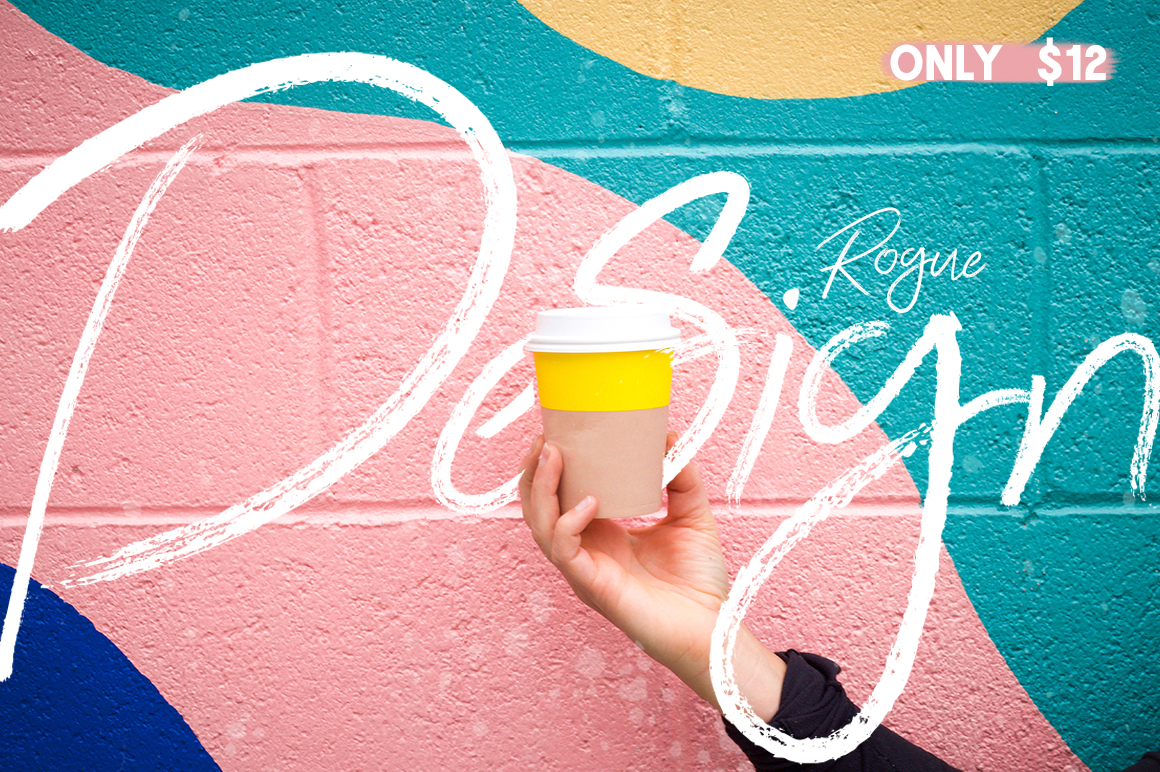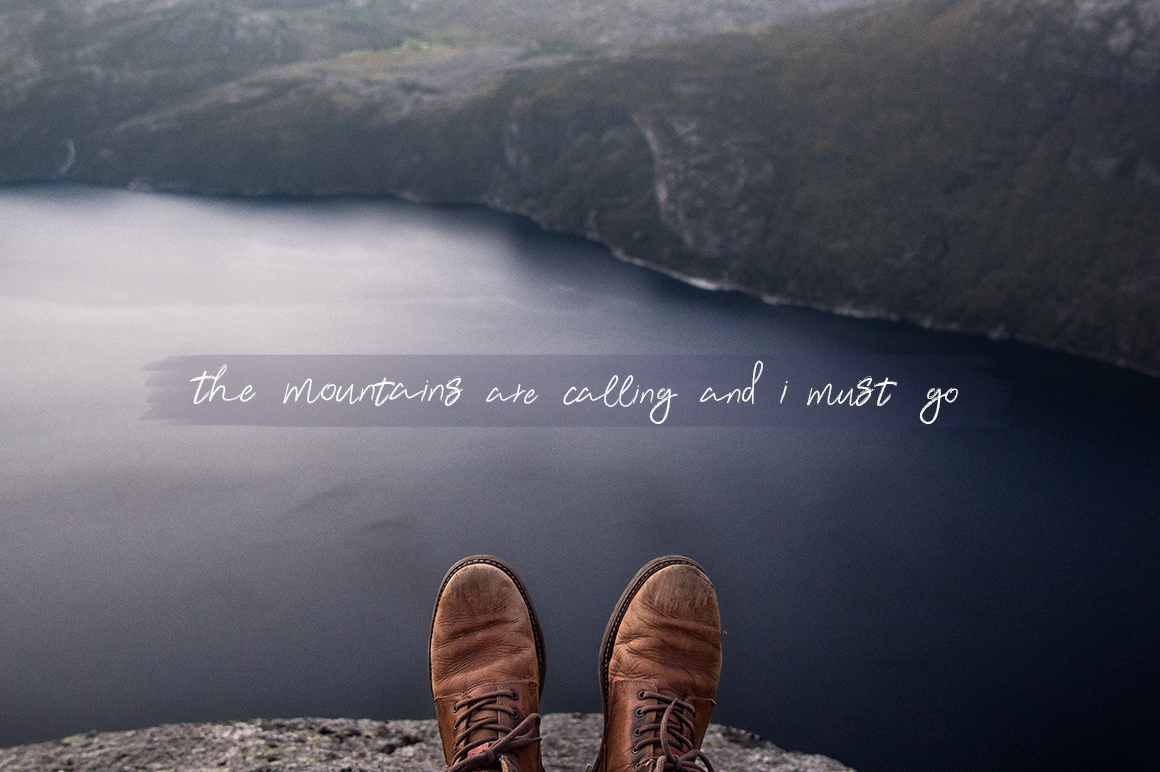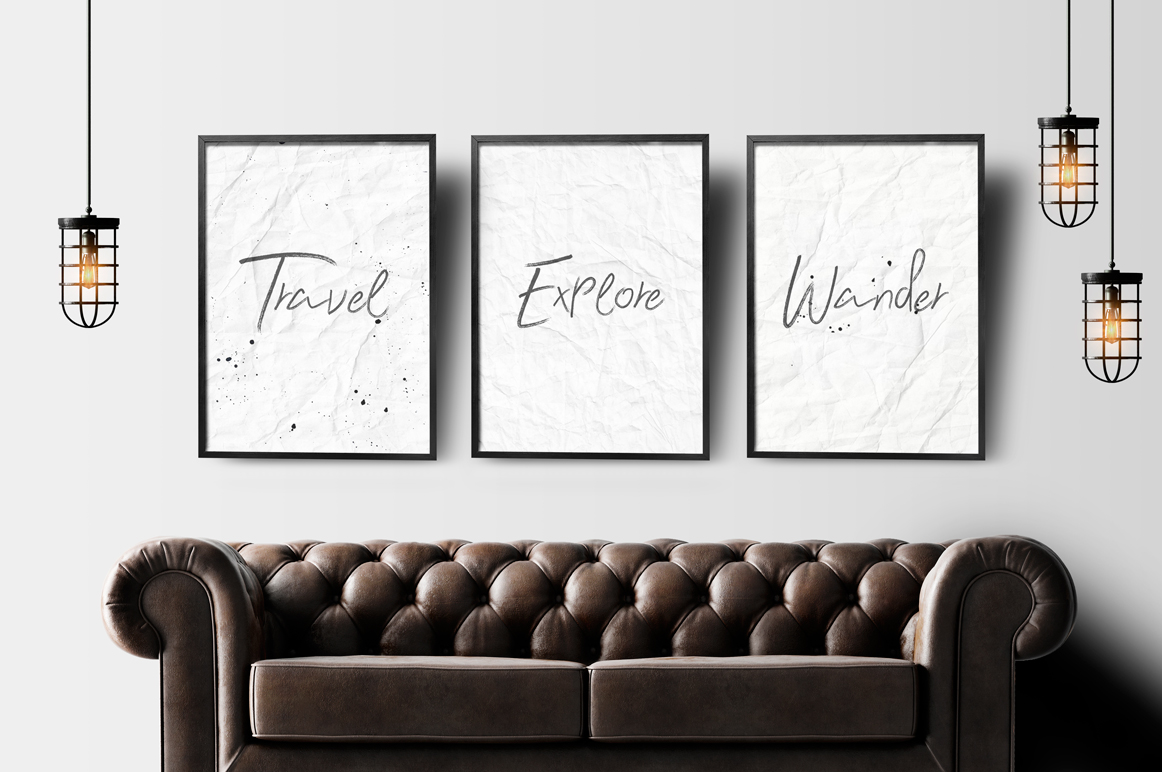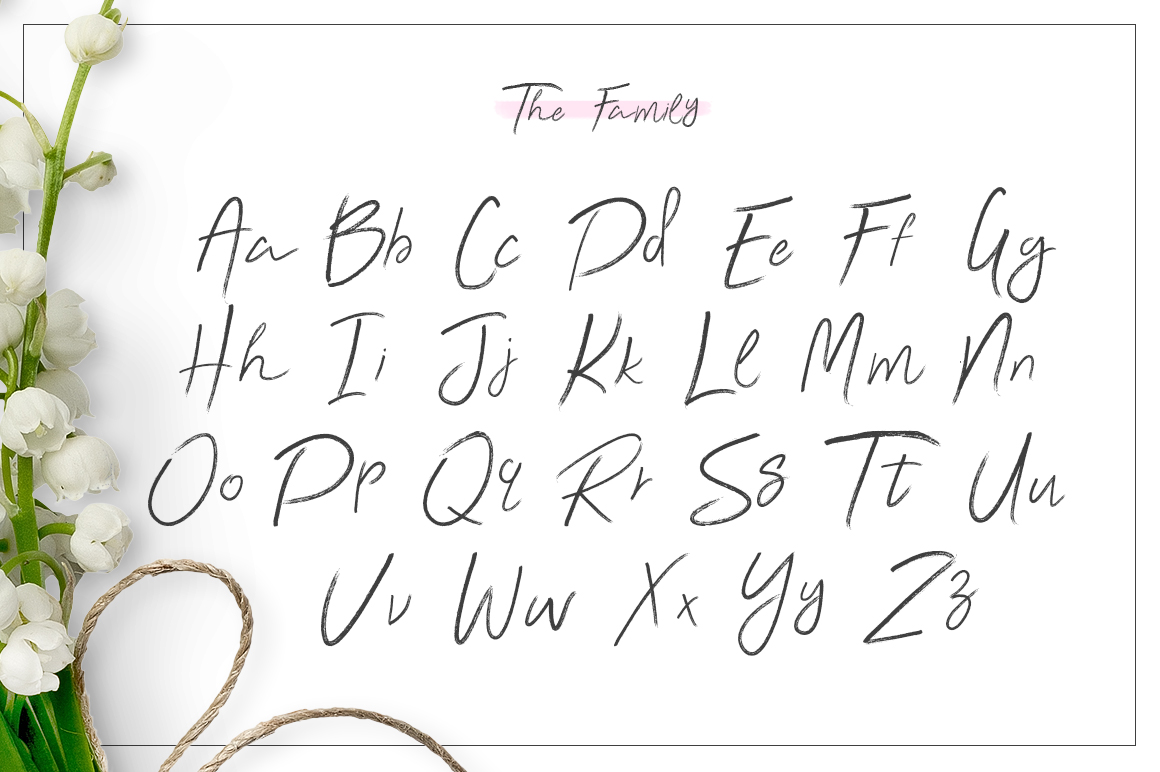
Rogue Design Font
About Rogue Design Font
This beautifully rough script typeface was created by hand using calligraphy pens, before being digitally converting online. Rogue has an incredibly natural feel that gives it a timeless appeal.